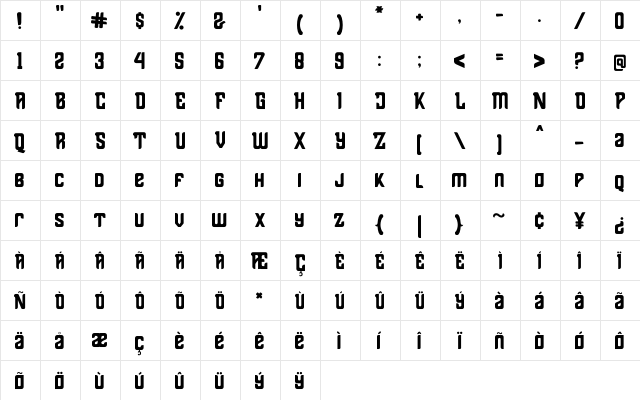
Thenacious Regular
Design Context for Thenacious Typeface
Thenacious is a composed and adaptable typeface that performs quietly and consistently across a wide range of design contexts.
Pro Tip: Pair Thenacious with a font of contrasting weight or personality to build a more expressive typographic hierarchy.